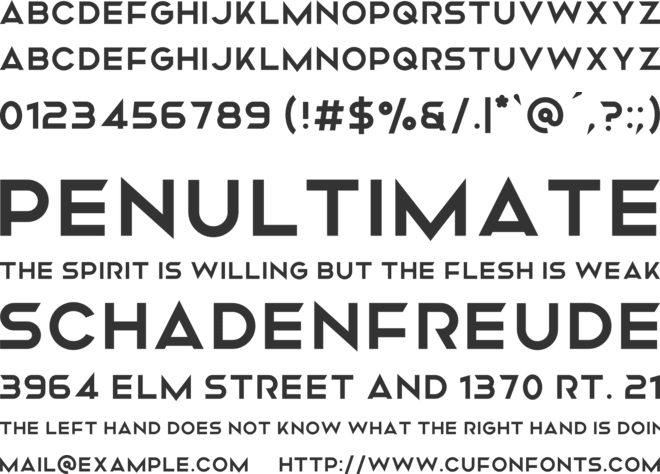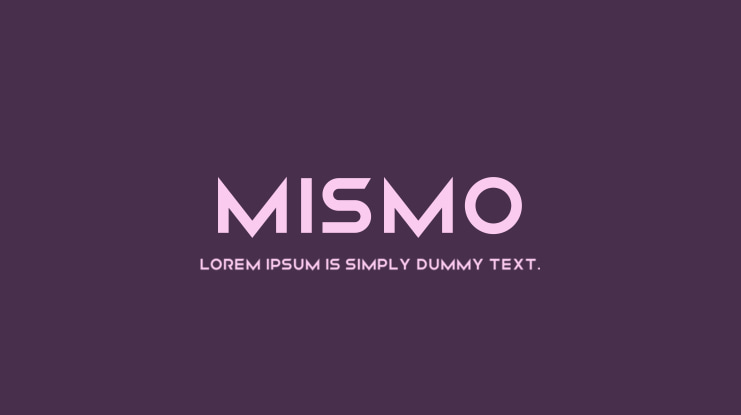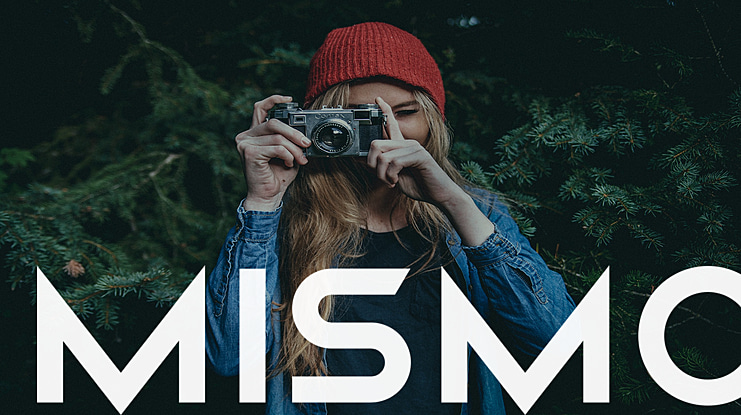
Mismo Font Family
Jéson Garnica
Mismo version 2 is a layered modern sans serif typeface family.(fixed kern issues). free for personal use only. if you are interested into using it commercially, please leave a message to